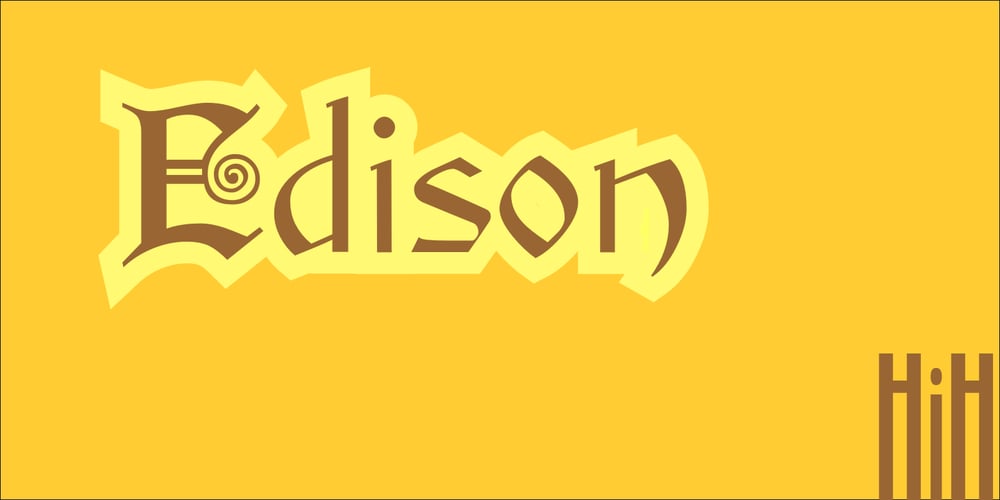
Edison
Edison font
Edison Font Family was designed by published by HiH. Edison contains 1 styles and family package options. Edison, is it Victorian or is it Art Nouveau? While this typeface may be found in Petzendorfer’s Treasury of Art Nouveau Alphabets, I believe the decorative spirals are more Victorian than “New Art.” To me, they looked tacked on, rather than organic — with the industrial mechanics of a coiled spring, rather than the tendrils of a growing plant as the philosophical wellspring. Originally released by ATF in 1894 as Houghton, this typeface was re-released shortly thereafter by Bauer and Berthold in Germany as EDISON. Please do not make the mistake of thinking the font we offer here is no better than freeware fonts in cheap rip-off collections. This font has a set 218 characters and represents many hours manipulating the bezier curves to produce acceptable results. Available freeware fonts are often little more than raw scans with little accuracy of letterform. The muddy line intersections are a dead give-away. Frequently all you get is the alphabet itself. No numbers, no punctuation and don’t even think about diacriticals. The font we offer represents a tremendous value. Considering the hours of work involved, I have no business charging so little. I could make better money cooking hamburgers or bagging groceries. But we want very much to encourage you to purchase and enjoy these fascinating historical typefaces and are making it as easy as possible for you to do so. So please encourage us and order Edison today.